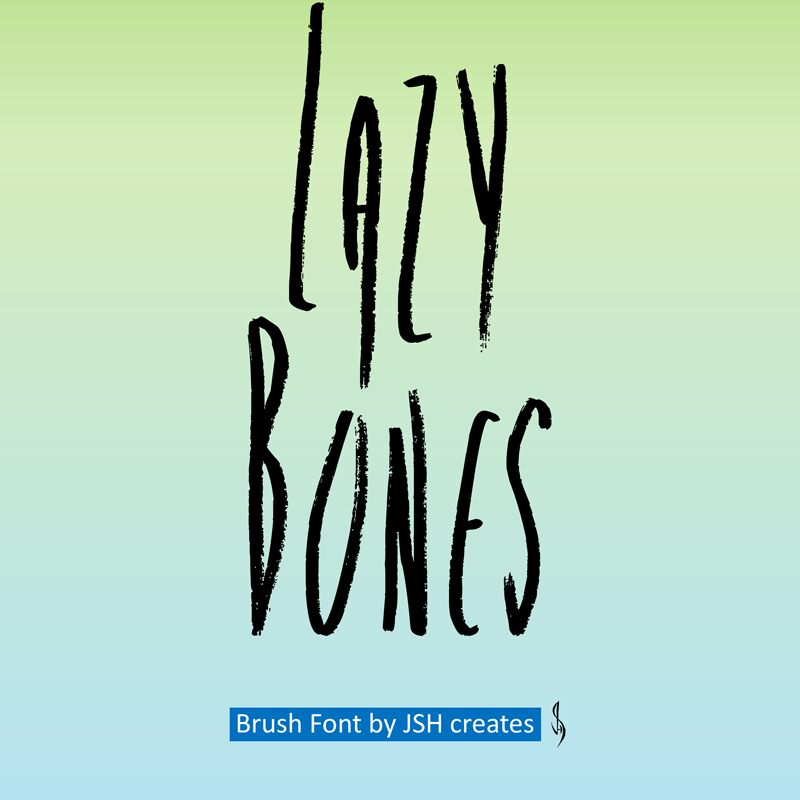
Lazy Bones font, designed by JSH creates, captivates with its playful brush style that evokes a sense of laid-back creativity. This light font exudes whimsy through its condensed lettering, offering an elegant yet casual aesthetic that draws the eye and sparks imagination.
The unique strokes and slightly uneven lines add character, making it ideal for designs that seek to convey warmth and personal touch. Whether used in invitations, posters, or branding materials aimed at a youthful audience, Lazy Bones strikes a perfect balance between artistic flair and readability.
Its distinctive charm makes it a versatile choice for projects that embrace creativity and individuality, inviting viewers into a world of relaxed sophistication.